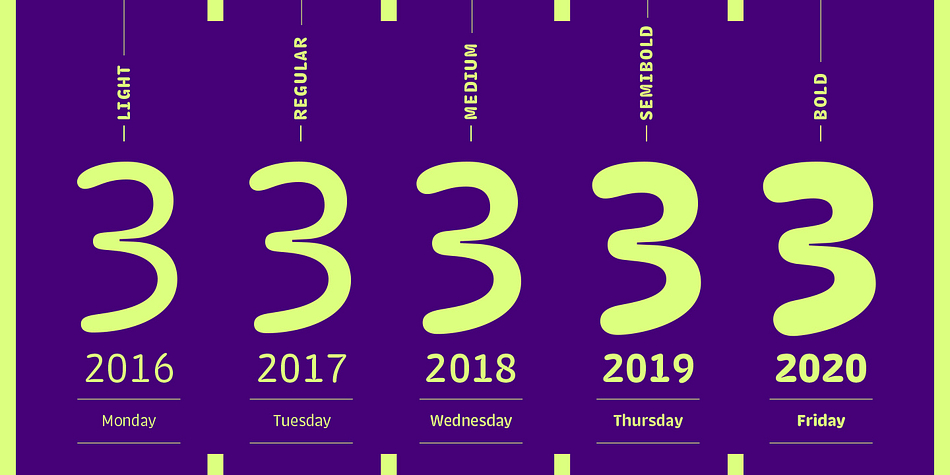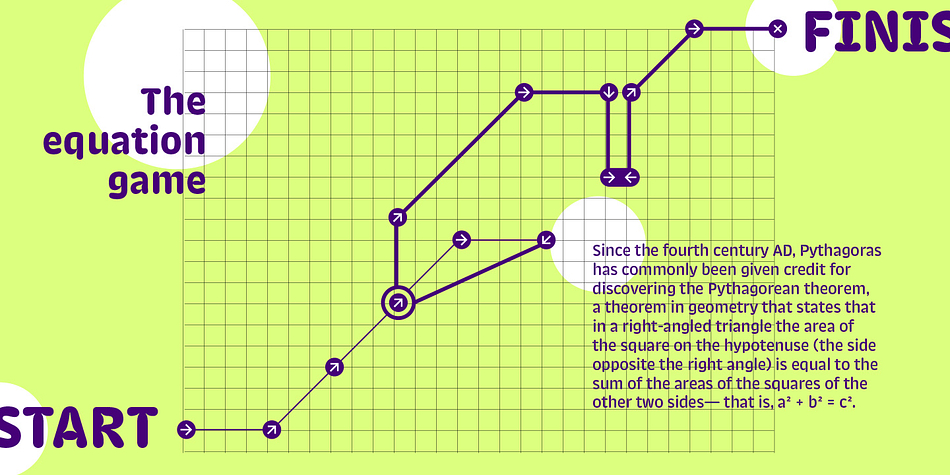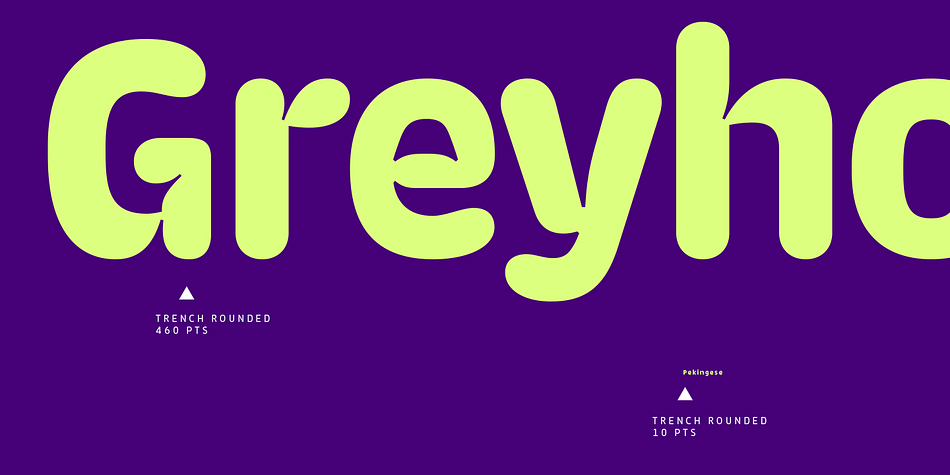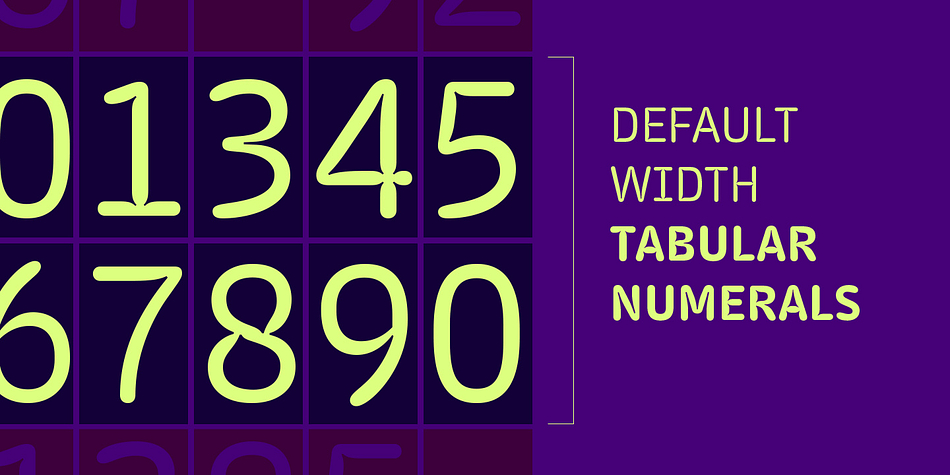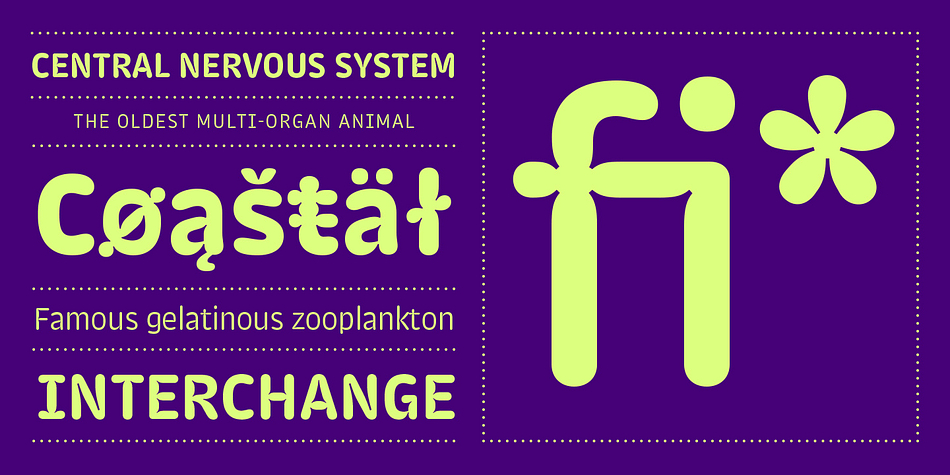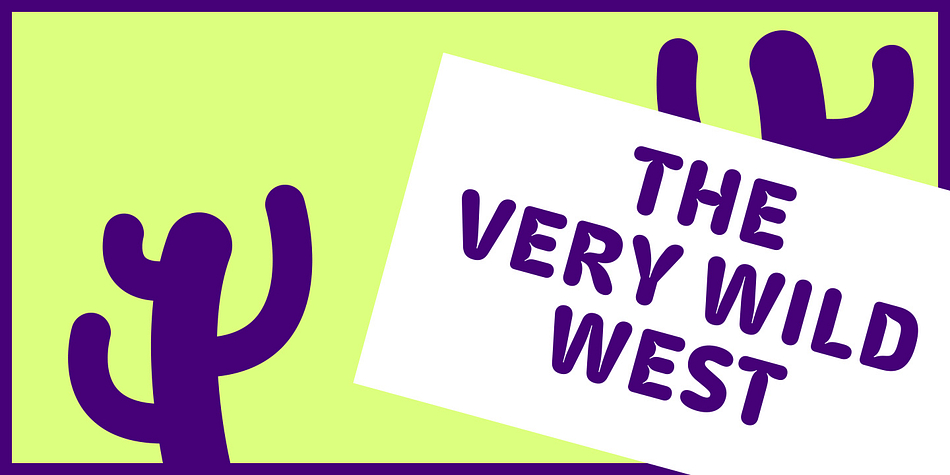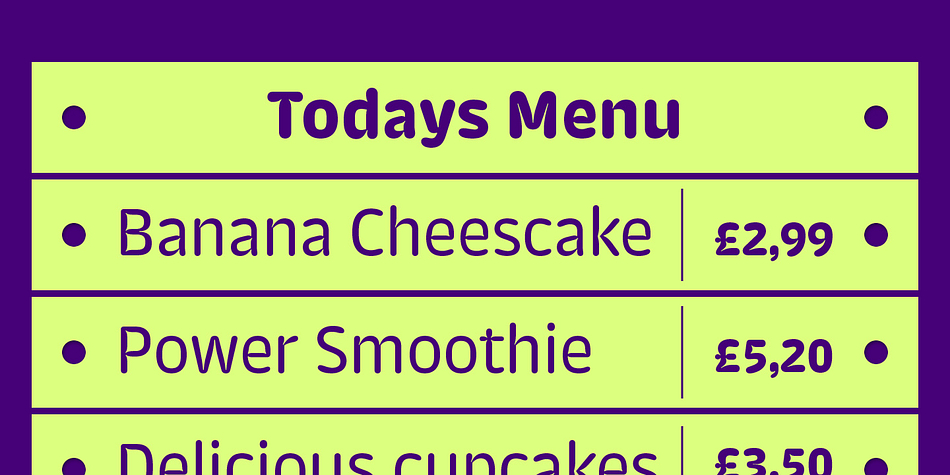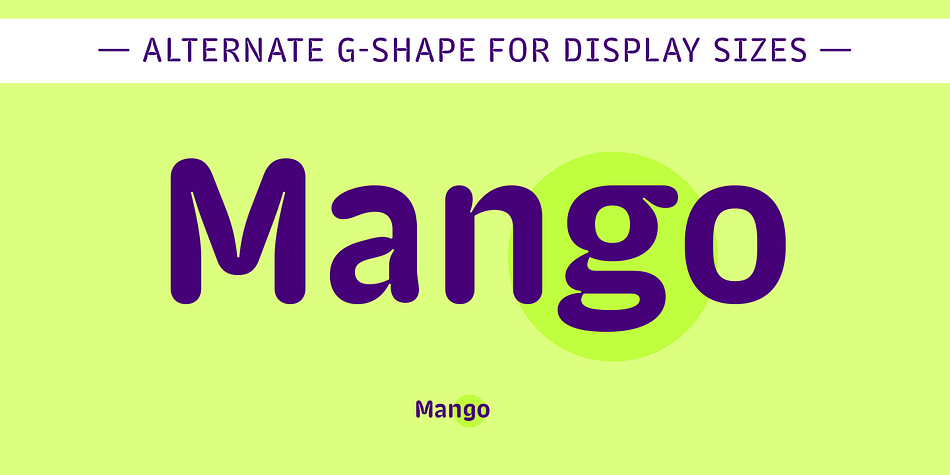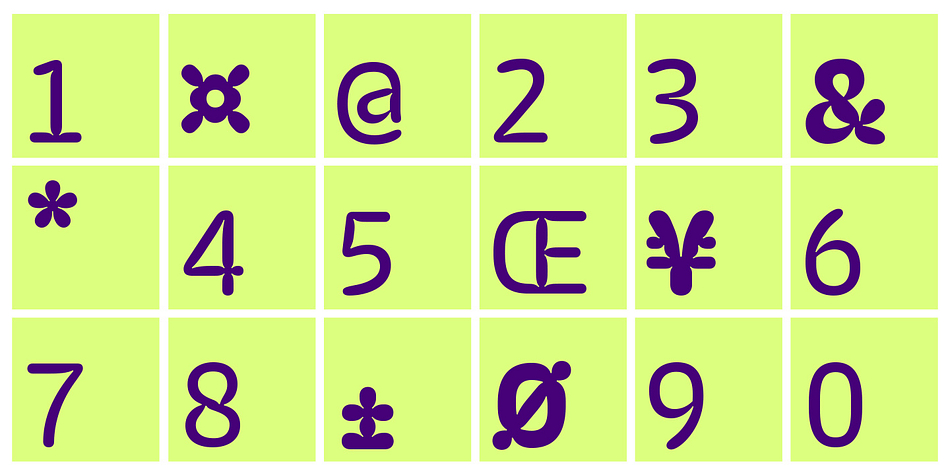
Designed by Shiva Nallaperumal, Trench Rounded is a sans serif font family. This typeface has five styles and was published by Indian Type Foundry.
Trench Rounded is part of the Trench superfamily, which also includes Trench Slab, and a special series of fonts designed to print text is very small point sizes – Trench Sans. All of the Trench fonts include large, prominent ink-traps.
Trench Rounded was inspired by a classic piece of graphic design history: Wim Crouwel’s exhibition poster for the sculptor Claes Oldenburg. Those letterforms – even though they don’t bear formal resemblance to Trench Rounded – featured huge, rounded, cushion-like letterforms with distinctive ink-traps; they gave the letters enough depth to echo the softness in Oldenburg’s sculpture.
There are a number of alternates included in each Trench Rounded font: the standard form of the capital “I” in all fonts has serifs; the “a” is two-storied and the “g” is single-storied. Over stylistic sets, users can access a capital “I” without serifs, a double-storied “g”, and alternate forms of “M”, “N”, “W”, and “w”.